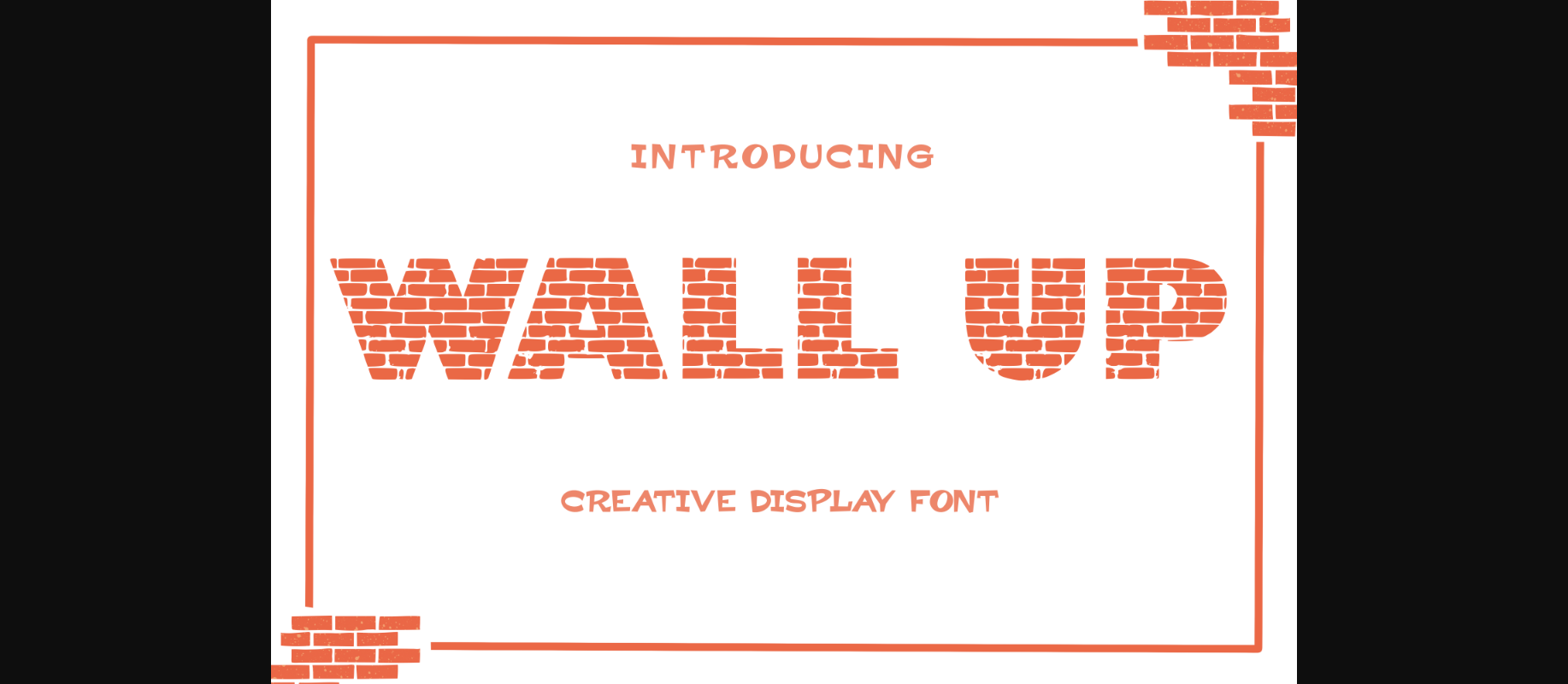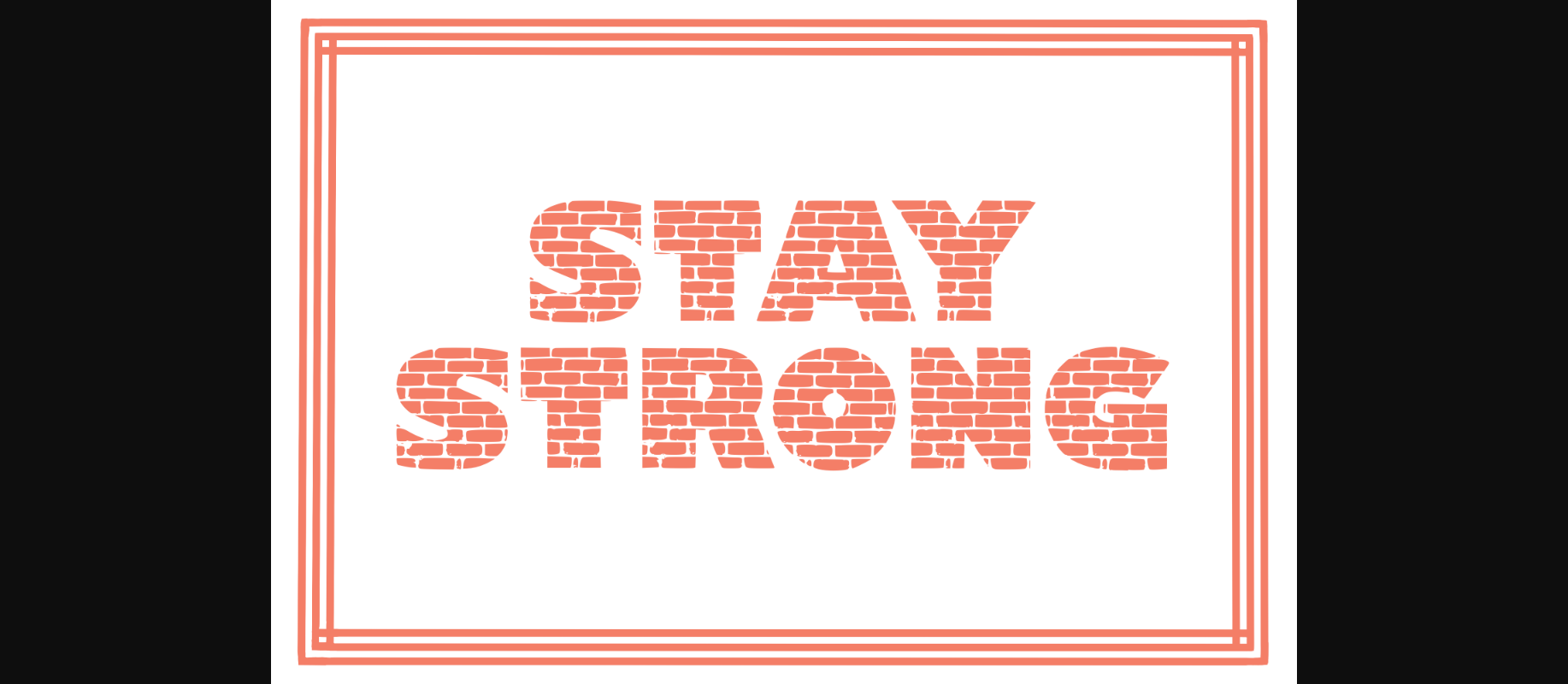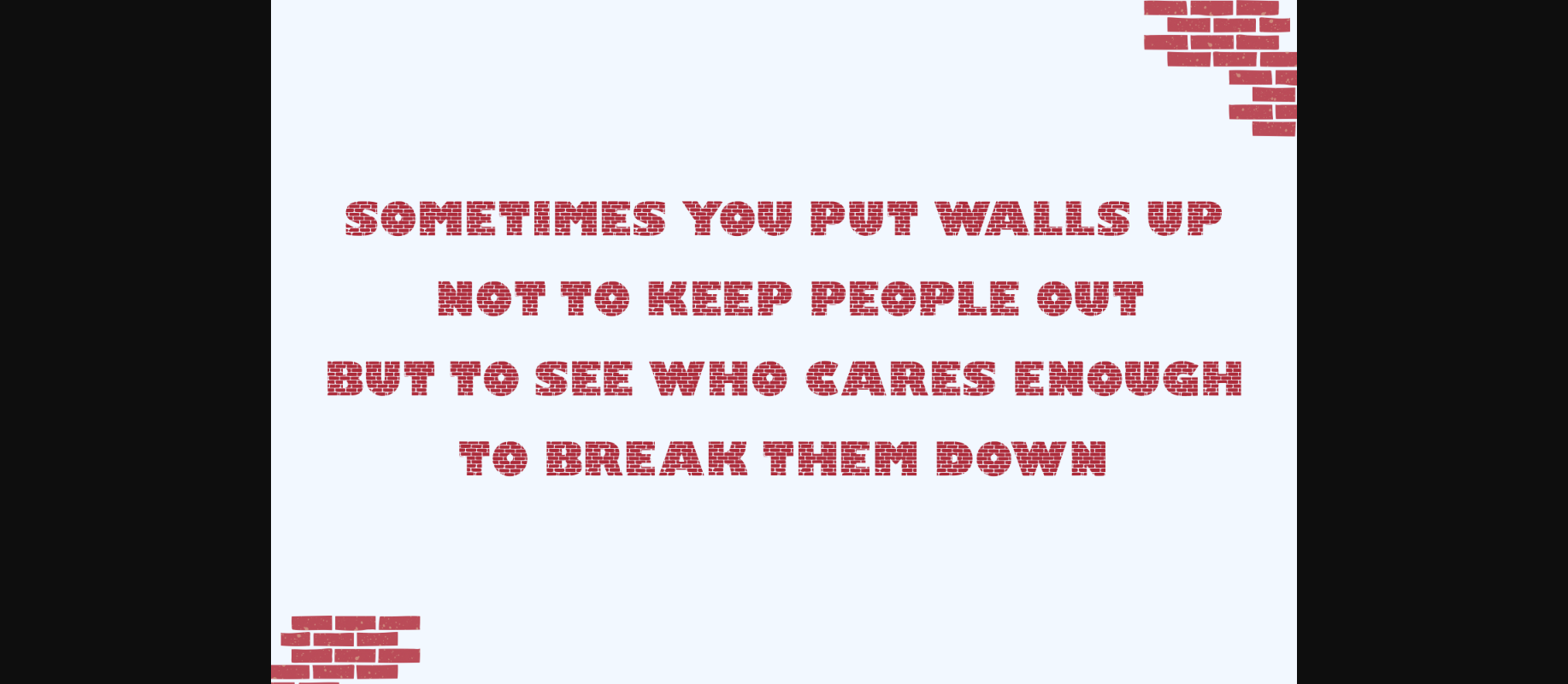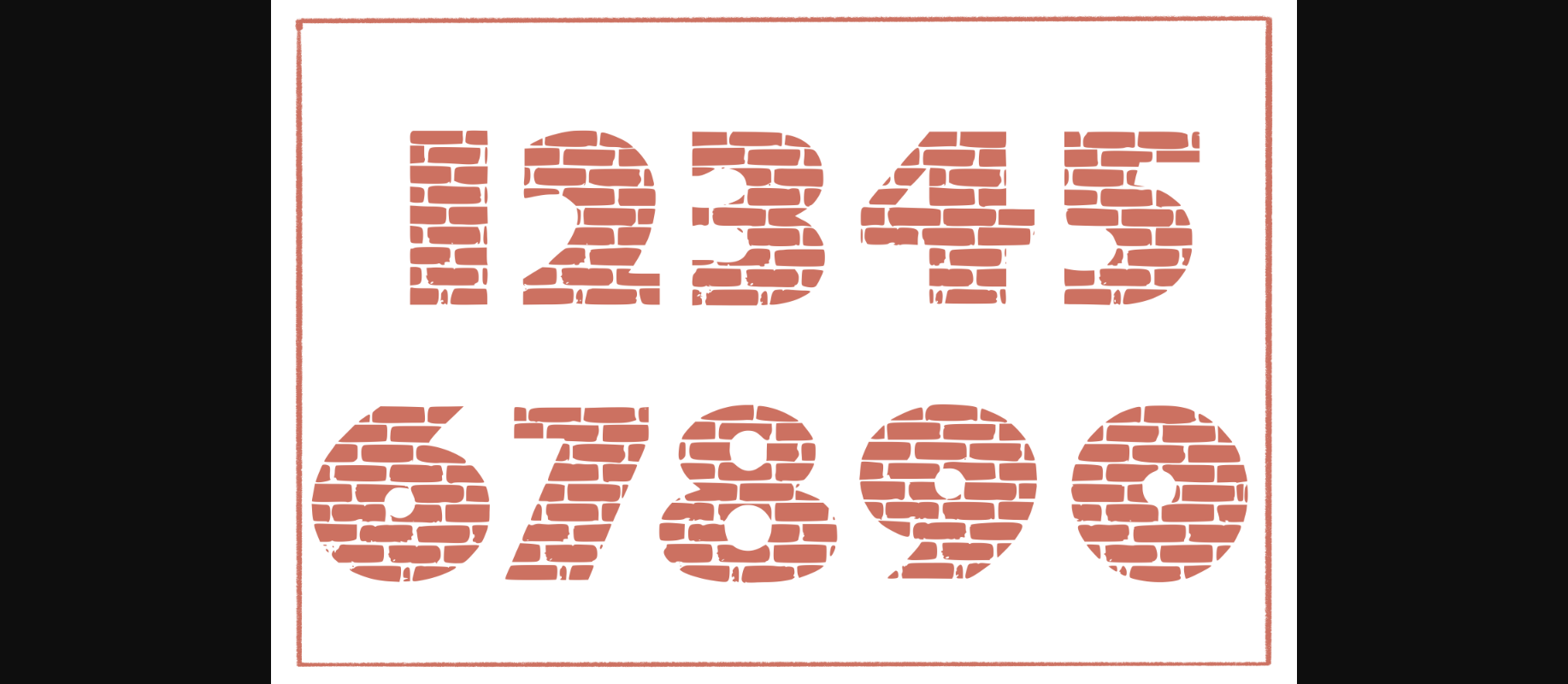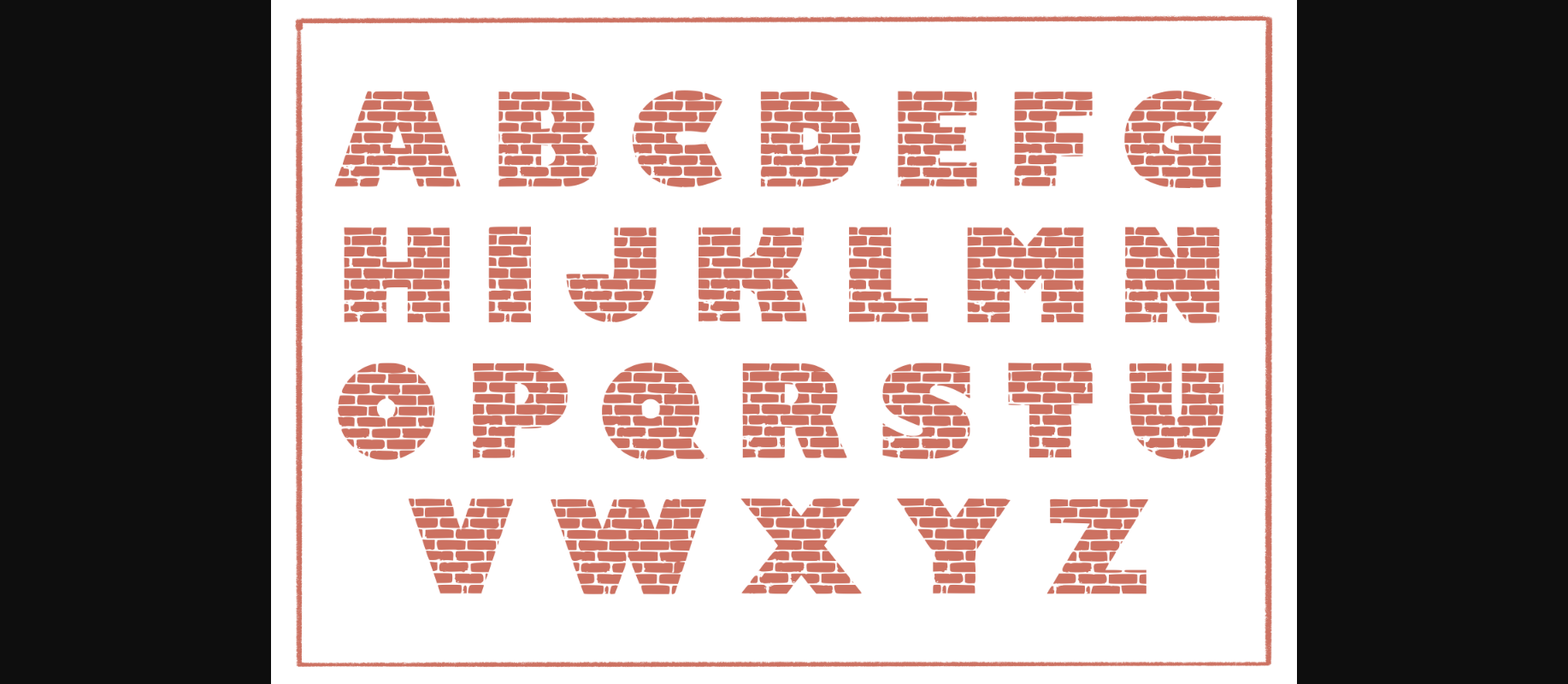
About Wall Up Font
Wall up is a standard decorative font that builds brick by brick. It is perfect for artwork that needs to show how neat and strong it can be together. It will look stunning on any poster, flyer, or print.